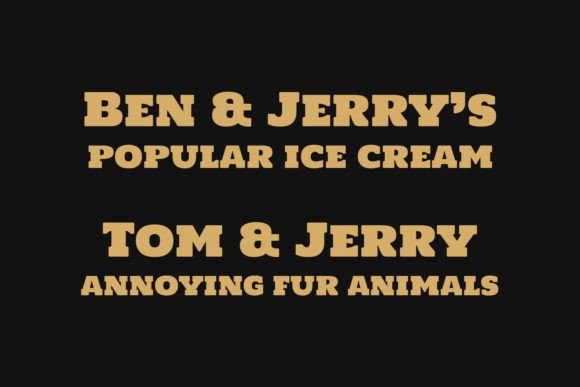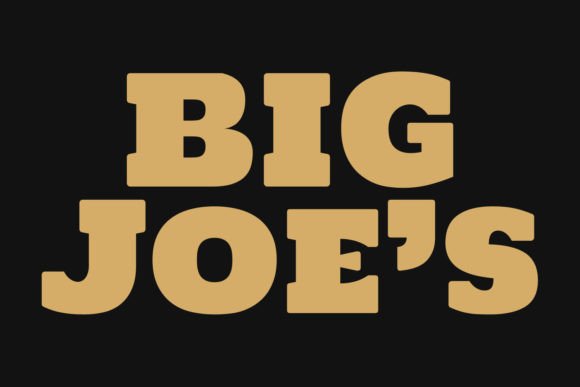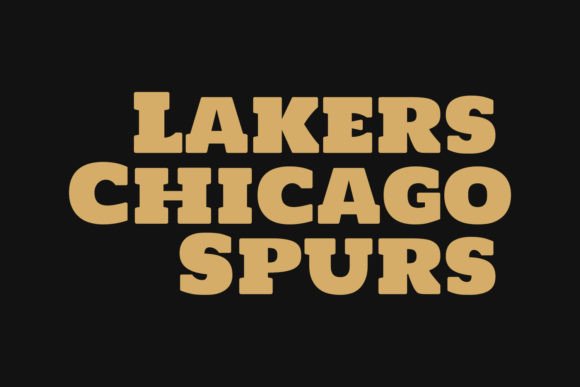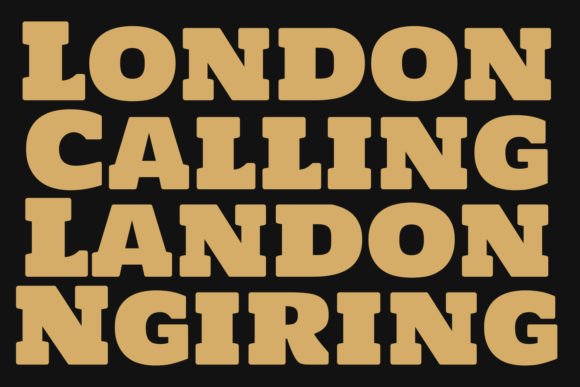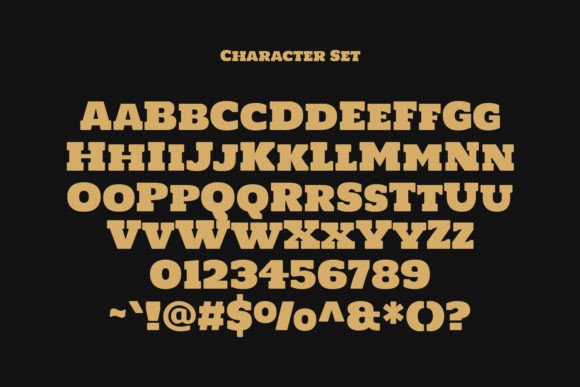
Introduction to Rothers Font
You’ve spent hours pouring over design concepts, perfecting the layout, and tweaking the typography, only to have your creative project fall flat because of the wrong font. We’ve all been there – the one that screams ‘I’m trying too hard’ or the one that blends into the background, losing the essence of your message. But what if you could elevate your design with a single, powerful choice? Enter Rothers Font, a game-changing slab-serif that’s about to revolutionize your design resource.
This bold and attractive font features thick, heavy strokes that give it a modern, powerful look. Its sharp, angular edges make it stand out from the crowd, while its open counters and wide letterforms provide an overall look of sophistication and luxury. Whether you’re working on a high-stakes project or a personal passion project, Rothers Font is the perfect addition to take your design to the next level.
About Rothers Font
Key Features of Rothers Font
- Unique characteristics, including custom letterforms and ligatures, add a touch of sophistication to any creative project.
- Perfect for designers seeking a reliable and versatile design resource, Rothers Font is a must-have for any design library.
Honest Review: Rothers Font
As a designer, I’m always on the lookout for high-quality fonts to elevate my creative projects. Recently, I had the chance to work with Rothers Font, and I must say it’s a great addition to any design resource.
- Unique Design: Rothers Font offers a distinctive and modern aesthetic that can add a touch of sophistication to any design.
- High-Quality Vectors: The font is available in vector format, making it easy to scale up or down without losing any quality.
However, there are some limitations to consider: ⚠️
Limitsations ⚠️
- Limited Character Set: Rothers Font may not have the complete range of characters you need for a specific project, which could be a drawback.
- No Bold or Italic Options: Currently, the font is only available in regular weight, which may limit its versatility.
Overall, I’m impressed with Rothers Font’s unique design and high-quality vectors. While it may have some limitations, it’s still a valuable addition to any design resource. I’d recommend giving it a try for your next creative project, especially if you’re looking for a modern and sleek aesthetic.
Common Use Cases for Rothers Font
Rothers Font is ideal for various design projects, including logos, brochures, and business cards. Its transparent background feature makes it easy to overlay on images or backgrounds. With its high-quality design, Rothers Font is a valuable addition to any design resource library.
Tips for Getting the Most Out of Rothers Font